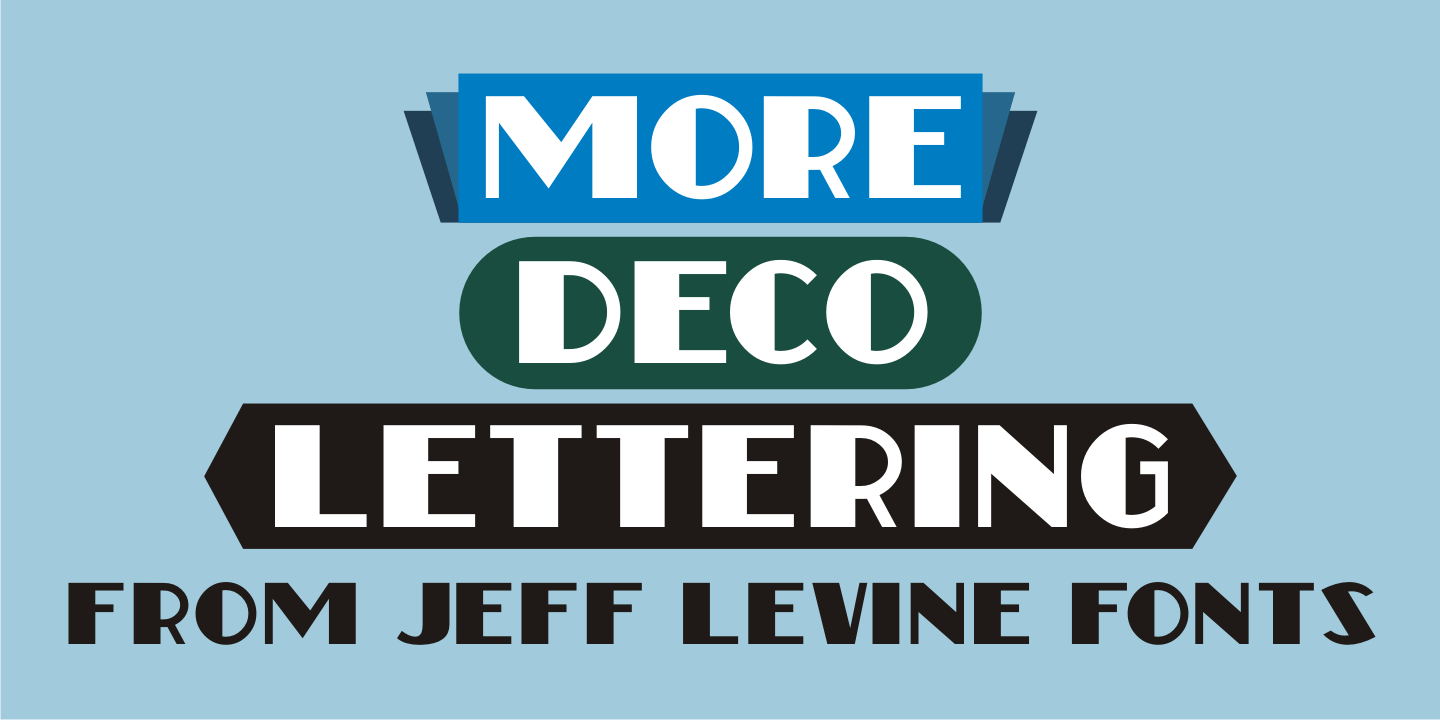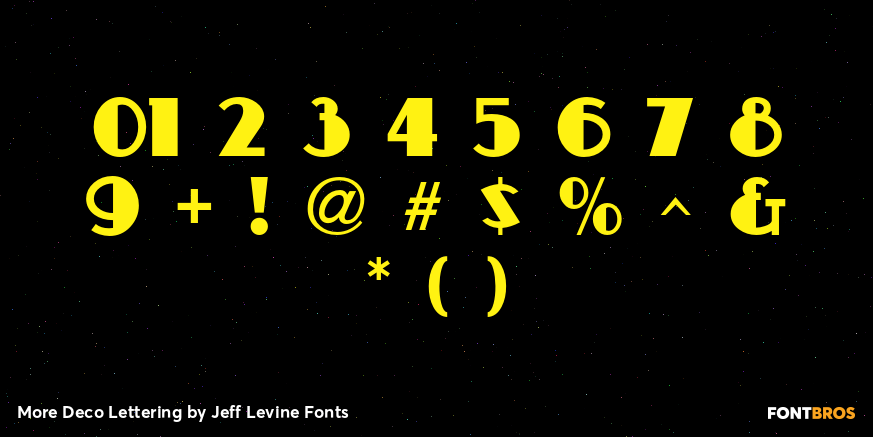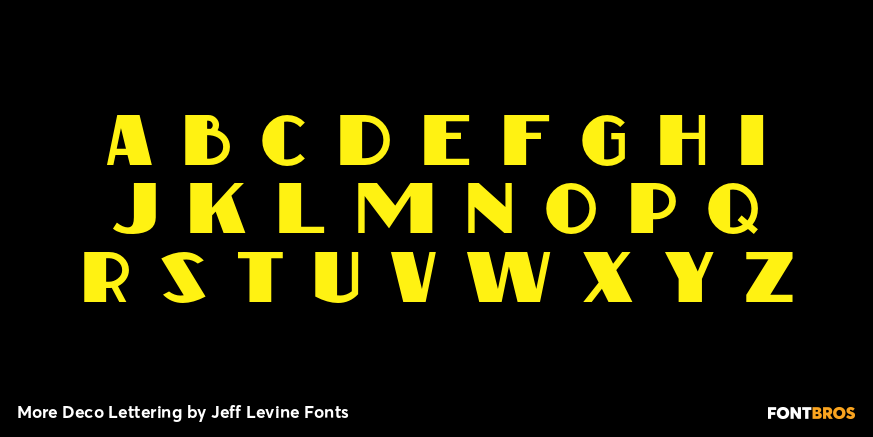
More Deco Lettering
Occasionally font projects are started, but then set aside for other designs and are subsequently forgotten for a while. Such is the case of More Deco Lettering JNL; a bold thick-and-thin sans modeled from vintage source material.